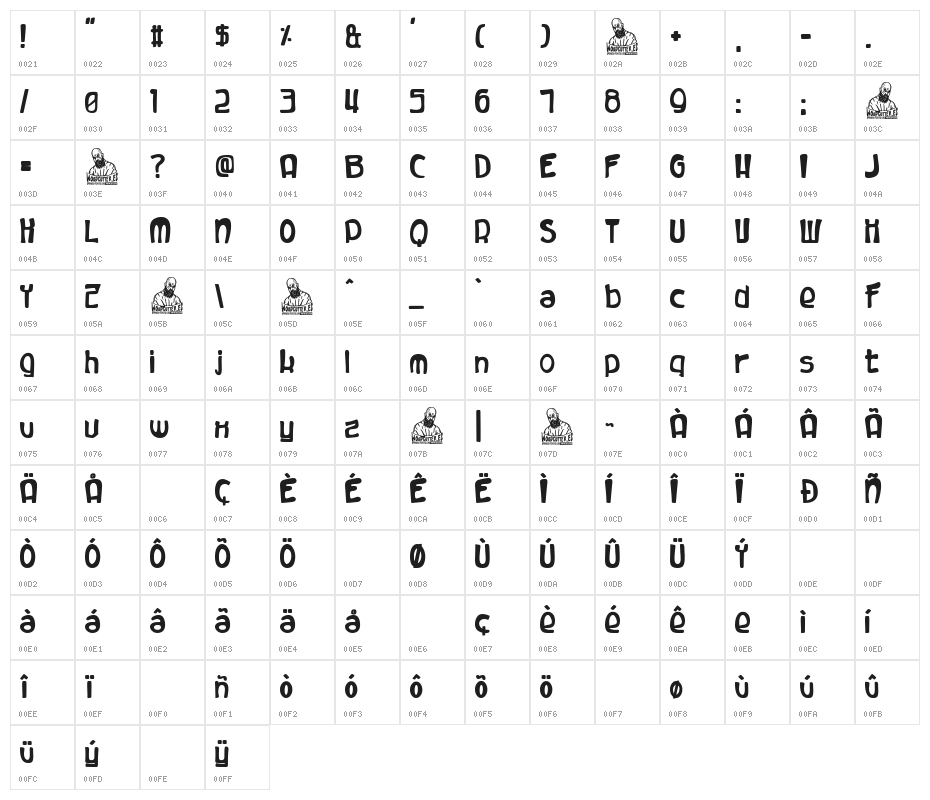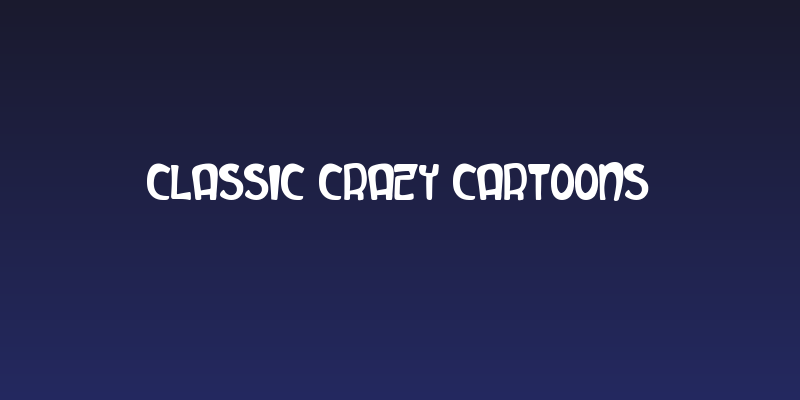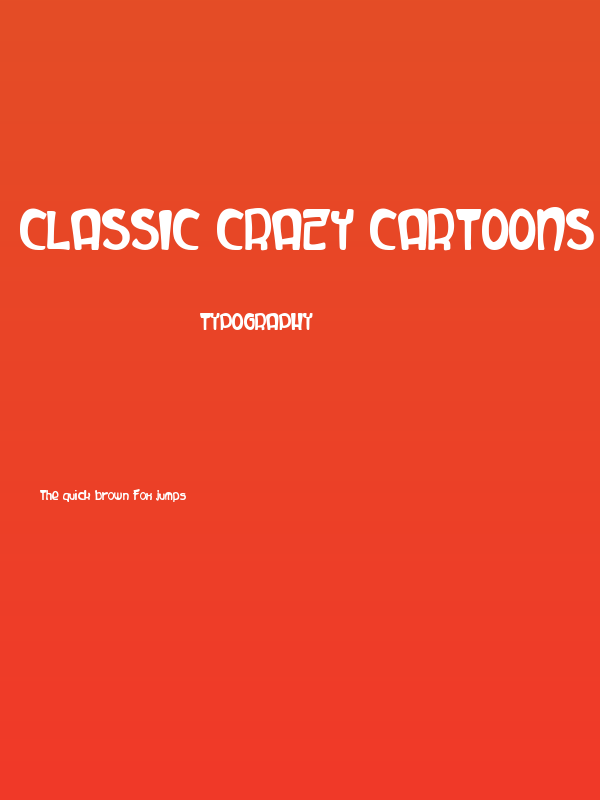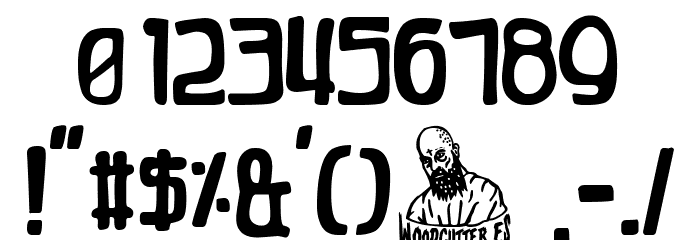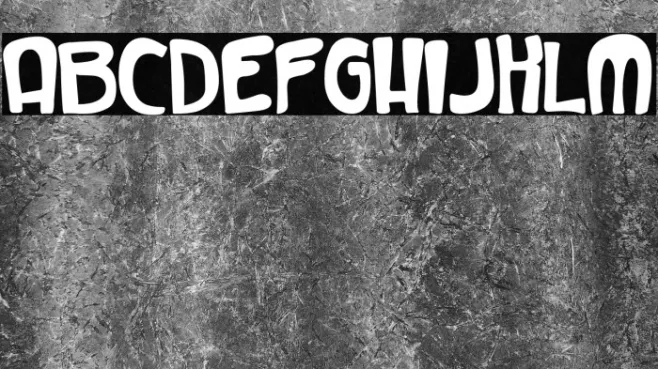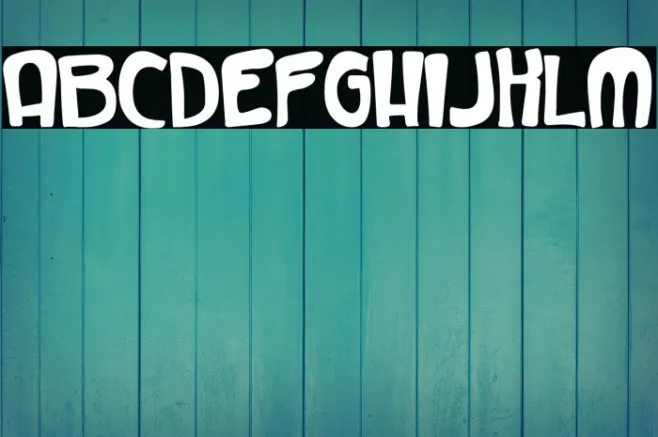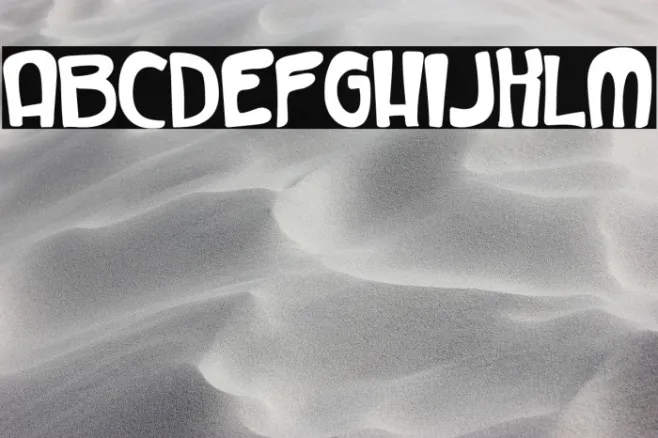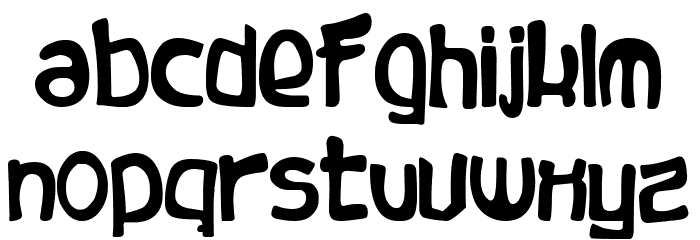
Classic Crazy Cartoons Font
Classic Crazy Cartoons Description
This playful and whimsical font features bold, rounded characters with a cartoonish flair. The letters are slightly irregular, giving them a hand-drawn appearance that adds to their charm. The uppercase and lowercase letters maintain a consistent style, with exaggerated curves and a friendly, approachable look. Numbers and special characters are equally bold and maintain the same playful aesthetic, making them perfect for creative projects. The overall style is reminiscent of classic cartoons, with a modern twist that makes it versatile for various design needs.
| Overall Style | Playful, Cartoonish, Whimsical |
| Proposed Projects | Ideal for children's books, comic strips, playful branding, and creative posters. |